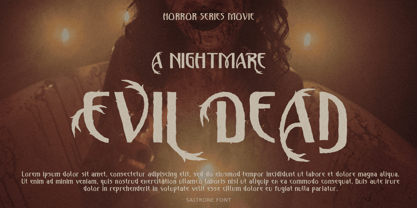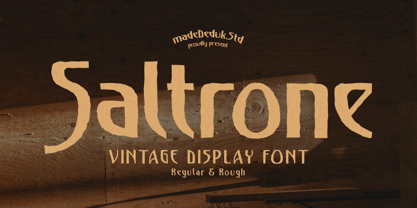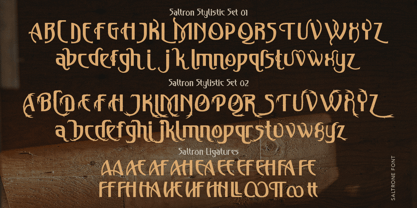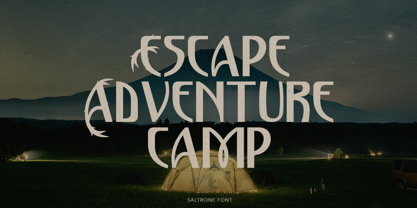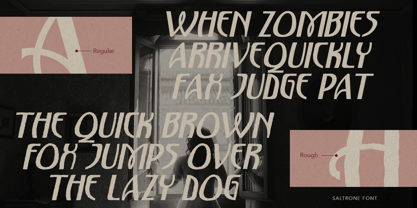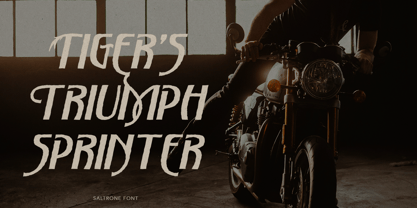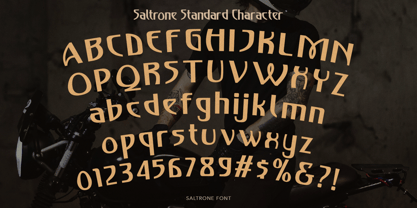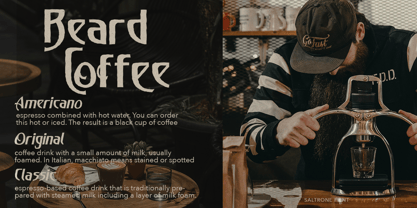
Saltrone
by madeDeduk
The Saltrone Font Family was designed by madededuk and published by madeDeduk. Saltrone contains 4 styles and family package options. More about this family
Saltrone is a display font, come with single weight, legible and expressive shapes. A lot of stylish alternates characters and ligature will makes this font suitable for your any project design. This font perfect for logos, branding, packaging, advertisements, apparel, stickers, music covers and more!
Designers: madededuk
Foundry: madeDeduk